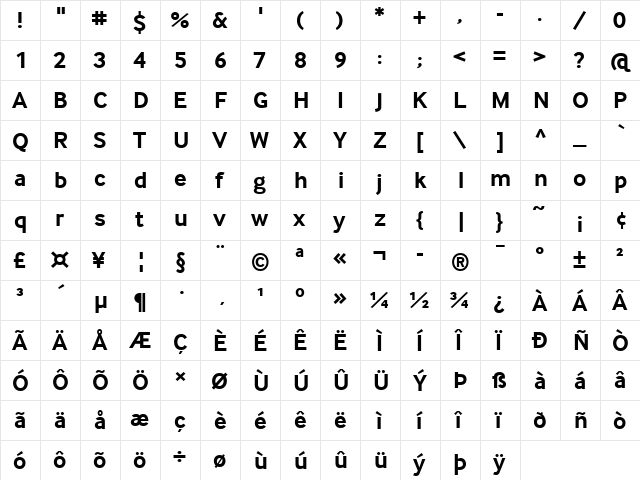
InterFace DaMa Bold
| Foundry | Dalton Maag Ltd |
| Designer | Bruno Maag |
Design Context for InterFace DaMa Typeface
InterFace DaMa takes a measured approach to typography — its balanced proportions and neutral character make it a reliable workhorse for both digital and print work. Its bold stroke weight gives it real presence on the page.